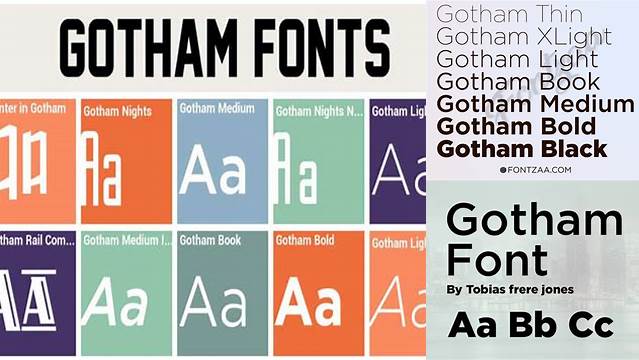
Hey guys! Are you on the hunt for a sleek, modern, and versatile font family? Look no further! Gotham Family Font is a design staple, loved by professionals and hobbyists alike. This guide dives deep into what makes Gotham so special, its applications, and where you can snag a free download. We'll cover everything from its history and characteristics to its use in branding and graphic design, ensuring you have a complete understanding of this iconic typeface. Whether you're a seasoned designer or just starting, this comprehensive guide will provide valuable insights into leveraging the power of Gotham for your projects. So, let's jump right in and explore the world of Gotham! Understanding the nuances of this font will help you make informed decisions and elevate your design work. From its geometric origins to its widespread adoption, Gotham has left an indelible mark on the design landscape. In this article, we will explore the history, characteristics, and applications of the Gotham font family, as well as guide you on where to find a free download. By the end of this guide, you will be well-equipped to use Gotham effectively in your projects, creating visually appealing and impactful designs. Gotham's versatility makes it suitable for a wide range of applications, from website headers to print materials. Its clean lines and modern aesthetic ensure readability and visual appeal, making it a favorite among designers and businesses alike. As you delve deeper into this guide, you will discover why Gotham has become a go-to choice for projects aiming to convey clarity, modernity, and sophistication. We will also address common questions and concerns about font licensing and usage, providing you with the information you need to use Gotham responsibly and ethically. So, get ready to explore the world of Gotham and unlock its potential for your design endeavors!
What is Gotham Font?
Gotham is a geometric sans-serif typeface designed by Tobias Frere-Jones in 2000. Inspired by the architectural signage of mid-20th-century New York City, Gotham exudes a clean, modern, and distinctly American vibe. Its letterforms are characterized by their wide proportions, tall x-height, and absence of serifs, making it incredibly legible and versatile. This font has become synonymous with clarity and contemporary design, and you've likely seen it everywhere – from corporate logos to building signage. The creation of Gotham was a meticulous process, driven by a desire to capture the essence of American modernism. Frere-Jones drew inspiration from the unadorned, functional lettering found on buildings and infrastructure across New York City. This research formed the basis for Gotham's distinctive character, which blends geometric precision with a touch of human warmth. The result is a typeface that feels both authoritative and approachable, making it ideal for a wide range of applications. Gotham's popularity soared after its high-profile use in Barack Obama's 2008 presidential campaign, further cementing its status as a design icon. Its clean lines and straightforward design resonated with the campaign's message of hope and change, demonstrating the font's ability to convey powerful emotions and ideas. This exposure propelled Gotham into the mainstream, making it a staple in the design world. The font family includes a variety of weights and styles, from thin and light to bold and black, providing designers with a comprehensive toolkit for their projects. This flexibility allows Gotham to adapt to different contexts, whether it's used for headlines, body text, or branding materials. Its versatility is one of the key reasons for its enduring popularity, as it can be seamlessly integrated into a wide range of design aesthetics. Understanding the nuances of Gotham's design and its historical context will help you appreciate its unique qualities and use it effectively in your own work. From its geometric roots to its modern applications, Gotham embodies a timeless appeal that continues to resonate with designers and audiences alike.
Key Characteristics of Gotham Font
Let's dive into what makes Gotham Family Font stand out. First off, its geometric construction gives it a structured and modern feel. Think perfect circles and straight lines forming the letters. This meticulous design lends Gotham its signature clarity and legibility. The tall x-height, referring to the height of lowercase letters, further enhances readability, making it a superb choice for both headlines and body text. Another key feature is its wide proportions. Gotham's characters are broader than many other fonts, contributing to its open and approachable appearance. This width also makes the font highly legible, even in smaller sizes or at a distance. The absence of serifs, those little decorative strokes at the ends of letters, gives Gotham a clean, minimalist aesthetic. This simplicity is a hallmark of modern design and ensures that Gotham remains timeless and versatile. In addition to its geometric structure, Gotham's design incorporates subtle nuances that add to its overall appeal. The letterforms are carefully balanced, with attention paid to the negative space between characters. This attention to detail contributes to the font's harmonious appearance and readability. Gotham's versatility is further enhanced by its range of weights and styles. The font family includes options from thin and light to bold and black, allowing designers to choose the perfect weight for their specific needs. This flexibility makes Gotham suitable for a wide range of applications, from delicate headings to impactful calls to action. The clean, modern aesthetic of Gotham makes it an excellent choice for branding and identity design. Its simplicity conveys a sense of professionalism and trustworthiness, making it ideal for corporate logos and marketing materials. The font's versatility also allows it to be used in a variety of visual contexts, ensuring consistency across different platforms and media. Understanding these key characteristics will help you appreciate the thought and craftsmanship that went into Gotham's design, and will inform your decisions when using it in your own projects. Its geometric roots, tall x-height, and wide proportions all contribute to its unique appeal and make it a valuable asset for any designer's toolkit.
Where Has Gotham Been Used?
Gotham’s widespread popularity means you've probably seen it countless times without even realizing it! One of its most famous uses was in Barack Obama’s 2008 presidential campaign, where its clean and optimistic look perfectly conveyed the campaign's message. Big brands like Coca-Cola and Starbucks have also embraced Gotham for their logos and marketing materials, solidifying its status as a go-to font for major companies. Beyond branding, Gotham is frequently used in editorial design, particularly in magazines and newspapers, thanks to its excellent readability. You'll often find it in headlines and body text where clarity is paramount. Government agencies and civic projects have also adopted Gotham for signage and wayfinding systems, showcasing its ability to communicate information effectively. This use extends to building signage, public transportation systems, and other environments where clear and concise communication is essential. The versatility of Gotham makes it an ideal choice for a wide range of applications, from digital interfaces to print materials. Its clean lines and modern aesthetic ensure that it remains readable and visually appealing in any context. The font's widespread adoption is a testament to its timeless appeal and its ability to convey a sense of professionalism and trustworthiness. In the world of sports, Gotham has been used for team logos, jerseys, and promotional materials. Its bold and dynamic appearance makes it well-suited for conveying the energy and excitement of sports. Its use in this context further demonstrates its adaptability and its ability to resonate with diverse audiences. The strategic use of Gotham in high-profile projects has contributed to its iconic status and has influenced its adoption by designers and businesses across various industries. Its presence in these contexts reinforces its association with modernity, clarity, and sophistication. Understanding the breadth of Gotham's applications will help you appreciate its versatility and its potential for your own projects. From political campaigns to corporate branding, Gotham has proven its ability to communicate effectively and make a lasting impression.